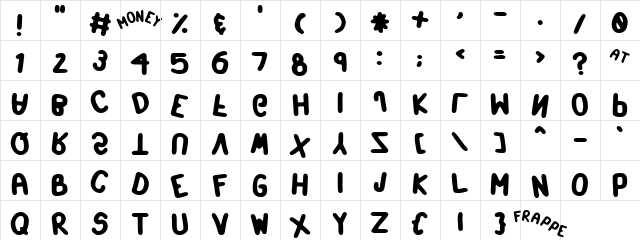
Pineapple Drops Regular
Design Context for Pineapple Drops Typeface
Pineapple Drops is a composed and adaptable typeface that performs quietly and consistently across a wide range of design contexts.